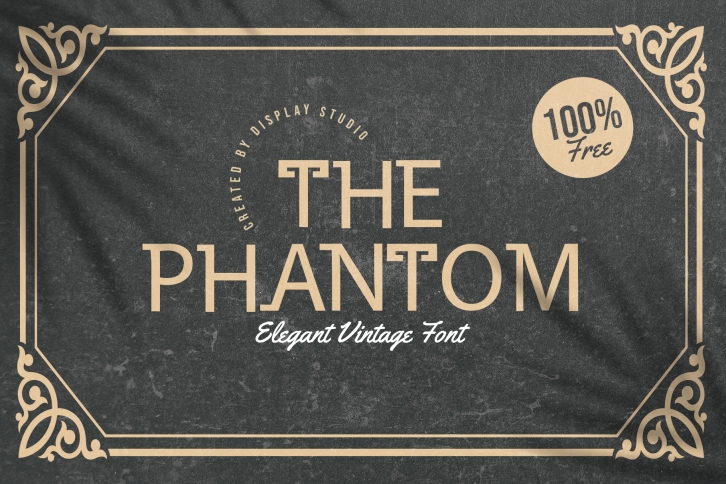
Introducing our new release, The Phantom Elegant Vintage Typeface. This typeset is perfect for brand logo, invitations, greeting card, or even any kind of project. With multilingual feature and style variations, this typeface would further enhance the aestethical aspect of your work.